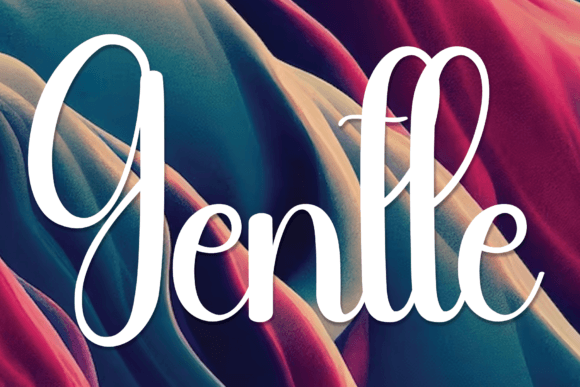
Gentle Font: The Sweetest Handwritten Font for Your Creative Projects
Are you looking for a font that can add a touch of warmth and personality to your designs? Look no further than Gentle Font, a sweet handwritten font that’s perfect for creating friendly and cute designs. In this article, we’ll explore the features and benefits of Gentle Font, and show you how to use it to take your creative projects to the next level.
What is Gentle Font?
Gentle Font is a beautiful handwritten font that’s designed to bring a touch of elegance and whimsy to your designs. With its soft, flowing lines and rounded edges, this font is perfect for creating designs that are both feminine and playful. Whether you’re designing wedding invitations, greeting cards, or social media graphics, Gentle Font is the perfect choice.
Key Features of Gentle Font
- Handwritten style: Gentle Font has a beautiful handwritten style that’s perfect for creating personal and heartfelt designs.
- Friendly and cute: This font is designed to be friendly and approachable, making it perfect for designs that need a fun and playful touch.
- Versatile: Gentle Font can be used for a wide range of design projects, from wedding invitations to social media graphics.
- Easy to read: Despite its handwritten style, Gentle Font is easy to read and understand, making it perfect for designs that need to communicate a message.
Use Cases for Gentle Font
Gentle Font is a versatile font that can be used for a wide range of design projects. Here are some use cases to get you started:
- Wedding invitations: Gentle Font is perfect for creating beautiful and elegant wedding invitations that set the tone for a special day.
- Greeting cards: This font is great for creating friendly and personalized greeting cards for birthdays, holidays, and other special occasions.
- Social media graphics: Gentle Font can be used to create fun and engaging social media graphics that showcase your brand’s personality.
- Branding and packaging: This font can be used to create beautiful and eye-catching branding and packaging designs that stand out from the crowd.
Tips for Using Gentle Font
Here are some tips for using Gentle Font in your designs:
- Pair with bold fonts: Gentle Font looks great when paired with bold fonts that provide contrast and add visual interest.
- Use for headings and titles: This font is perfect for headings and titles, where it can add a touch of elegance and whimsy.
- Experiment with colors: Gentle Font looks great in a range of colors, from soft pastels to bold brights.
- Add embellishments: Consider adding embellishments, such as flowers or hearts, to give your designs a more playful touch.
Gentle Font is a beautiful and versatile font that’s perfect for designers and crafters who want to add a touch of warmth and personality to their designs. With its handwritten style, friendly and cute vibe, and ease of use, this font is sure to become a favorite in your design toolkit. So why not give Gentle Font a try today and see how it can elevate your designs to the next level?